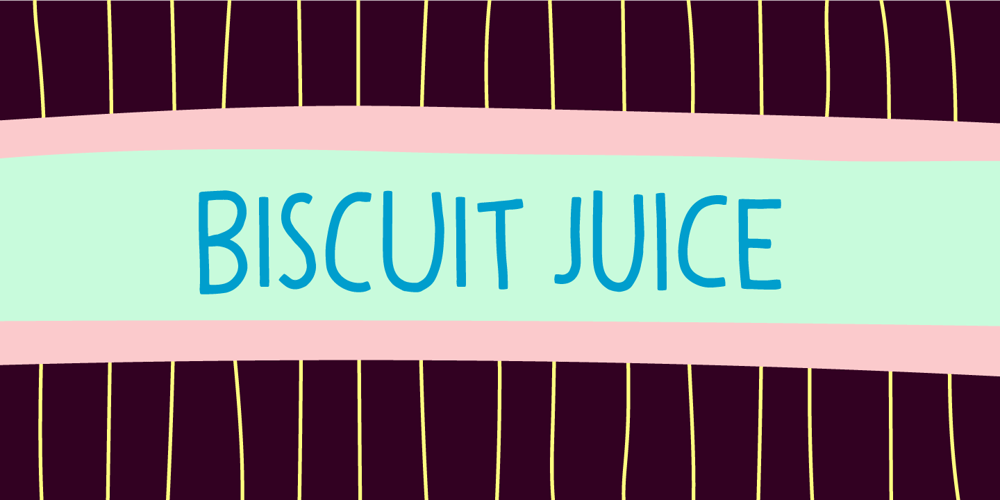
Biscuit Juice
Biscuit Juice font
Biscuit Juice Font Family was designed by Jakob Fischer and published by PizzaDude.dk. Biscuit Juice contains 2 styles and family package options. A biscuit and a cup of coffee, a biscuit and a cup of tee … both are obvious – but what about a biscuit and a glass of juice? I loved that combination as a kid (and I even crumbled the biscuit in the juice…yuck…I wouldn’t do that today!!!Anyway, here you have a legible uppercase font with a nice handmade look. I’ve added 4 different versions of each letter, which makes the font look really nice and slightly jumpy. I even added two nice swashes to the N and K.Enjoy!